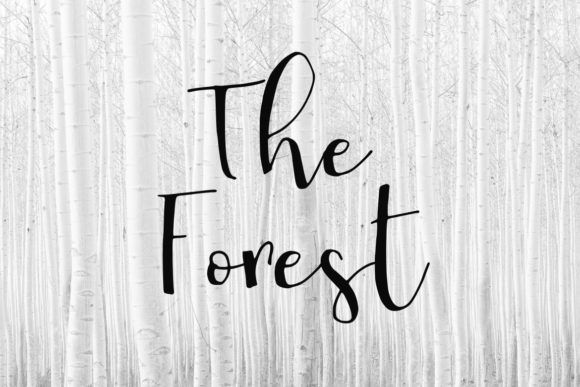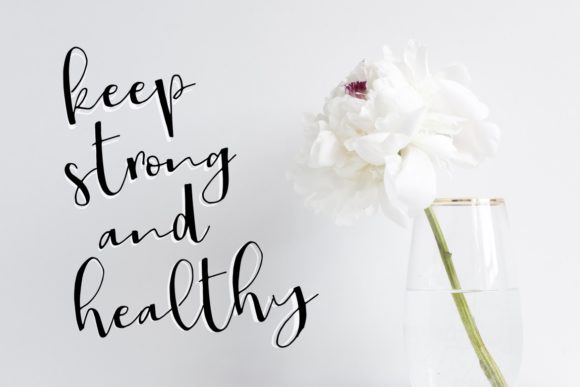
My Way Font
About My Way Font
My Way is an unique handwritten font perfect for projects such as logos, invitations, t-shirt designs and much more.
Give your next design a personal touch with this stylish font.